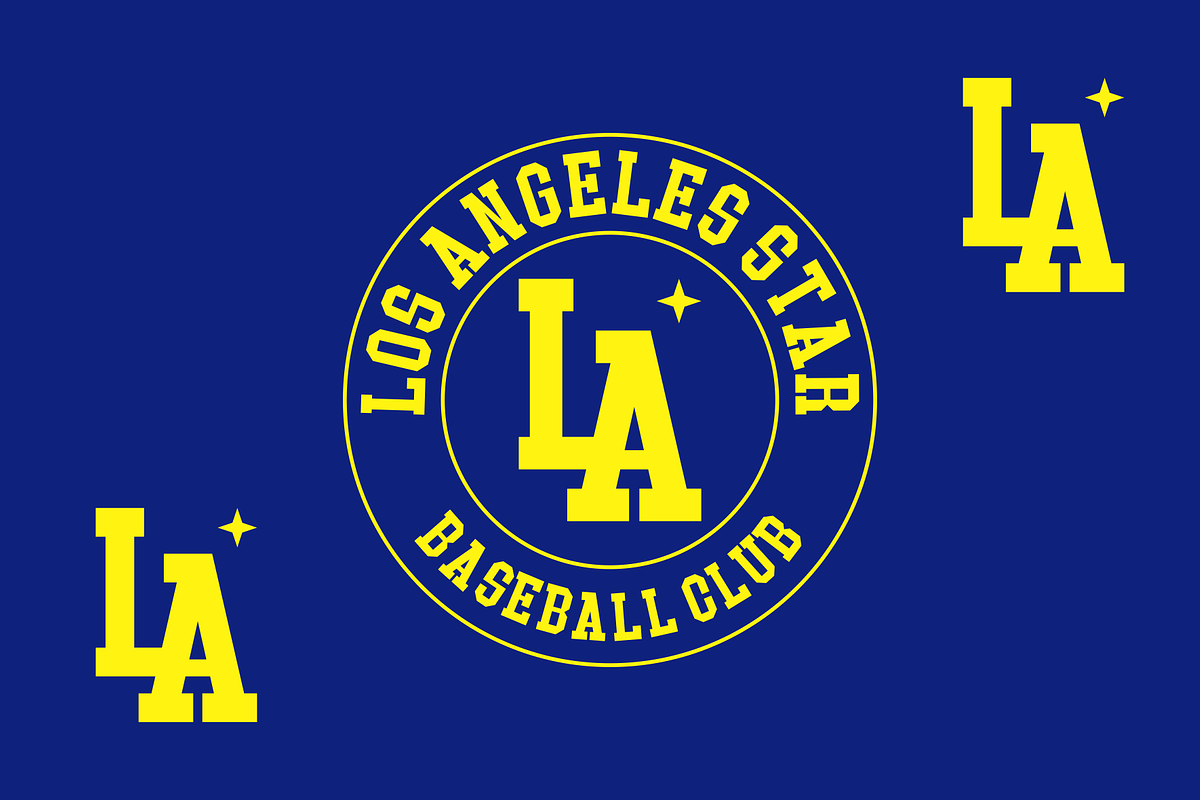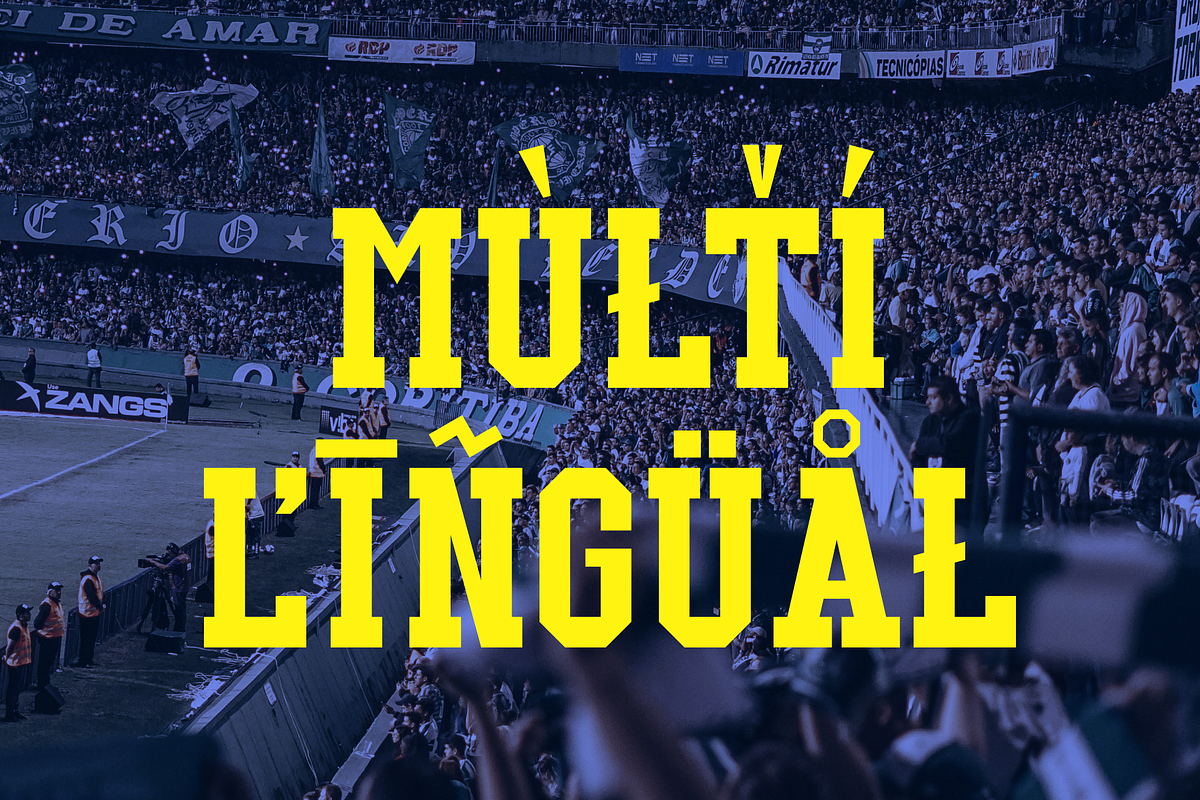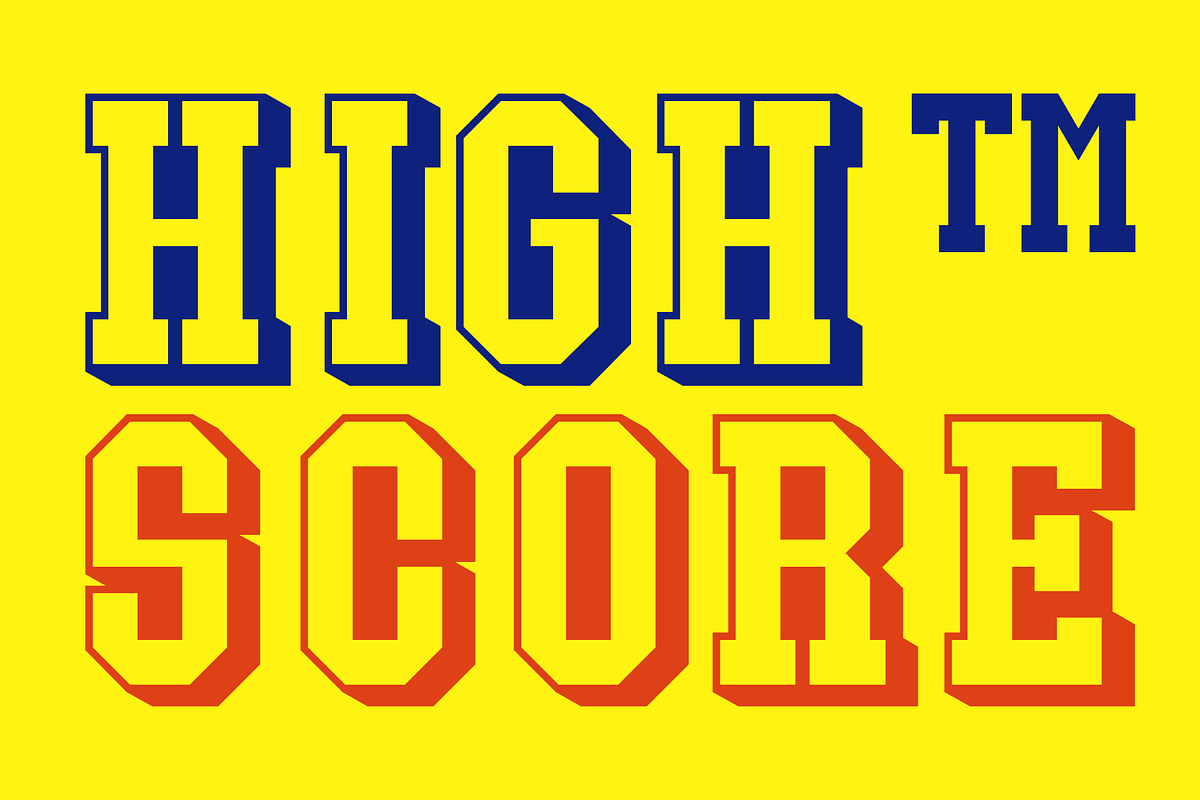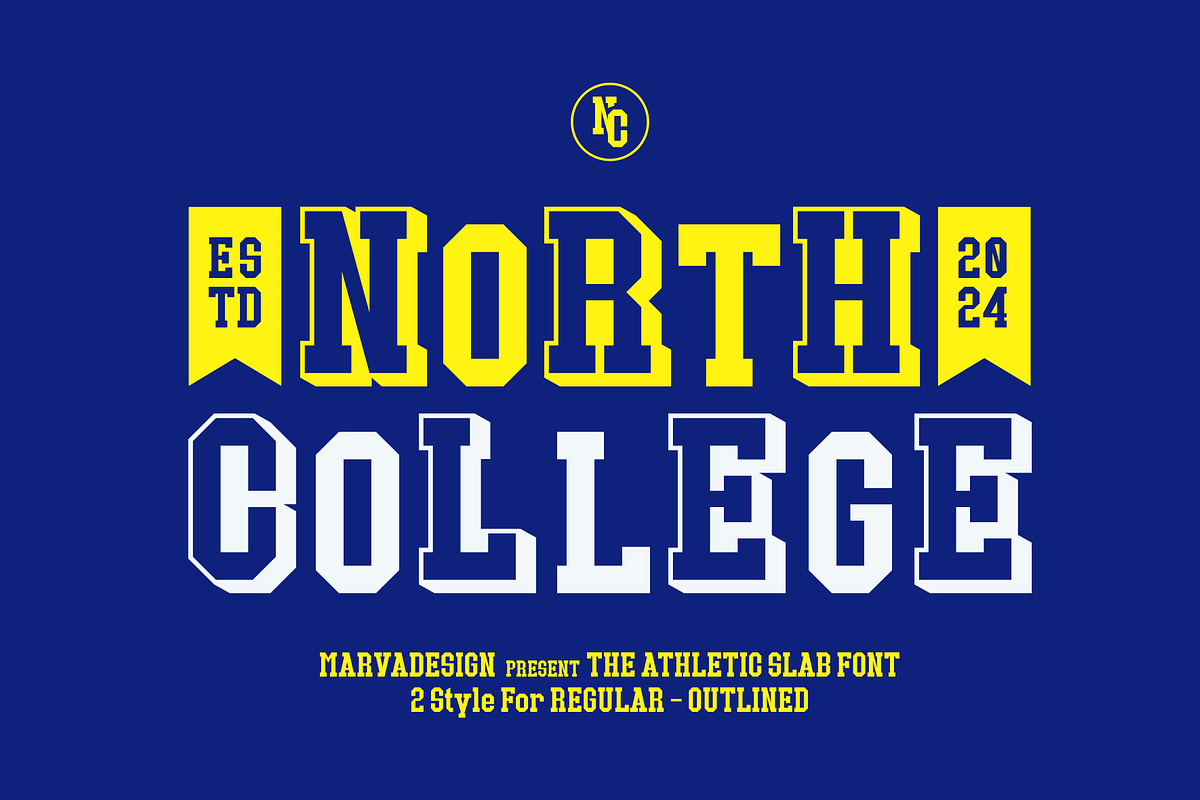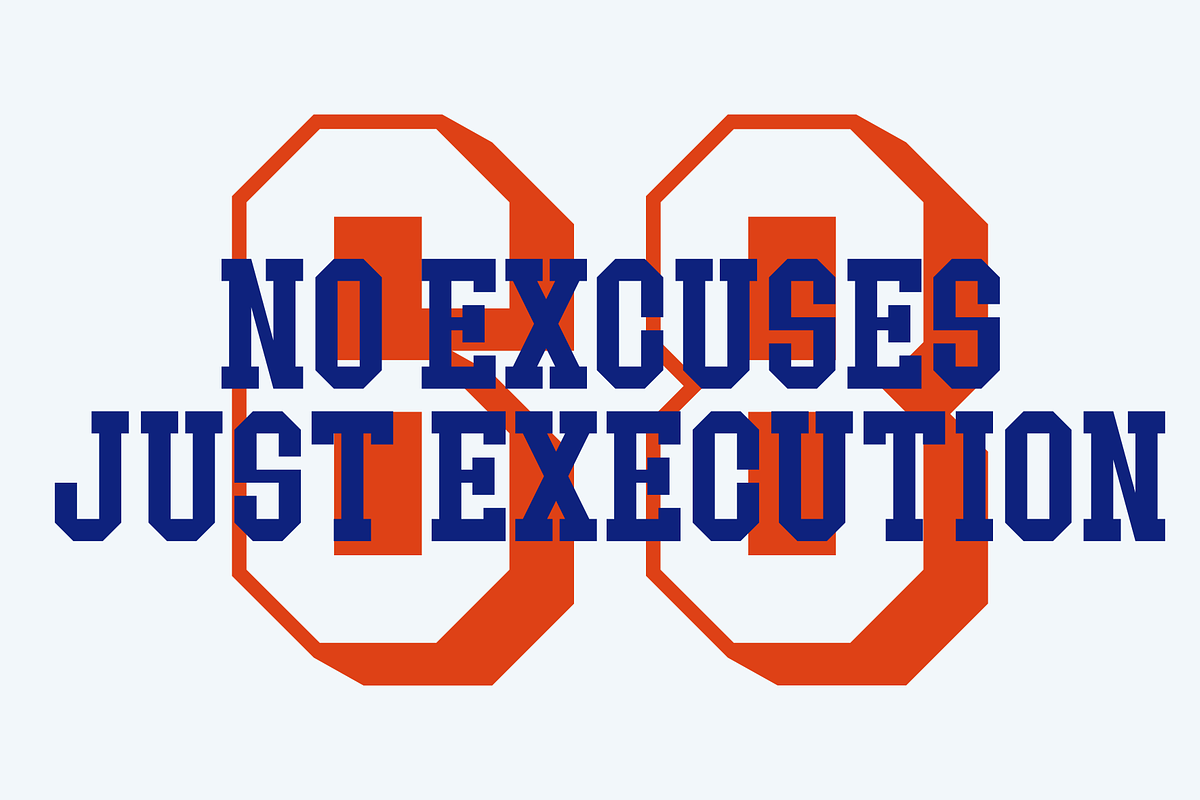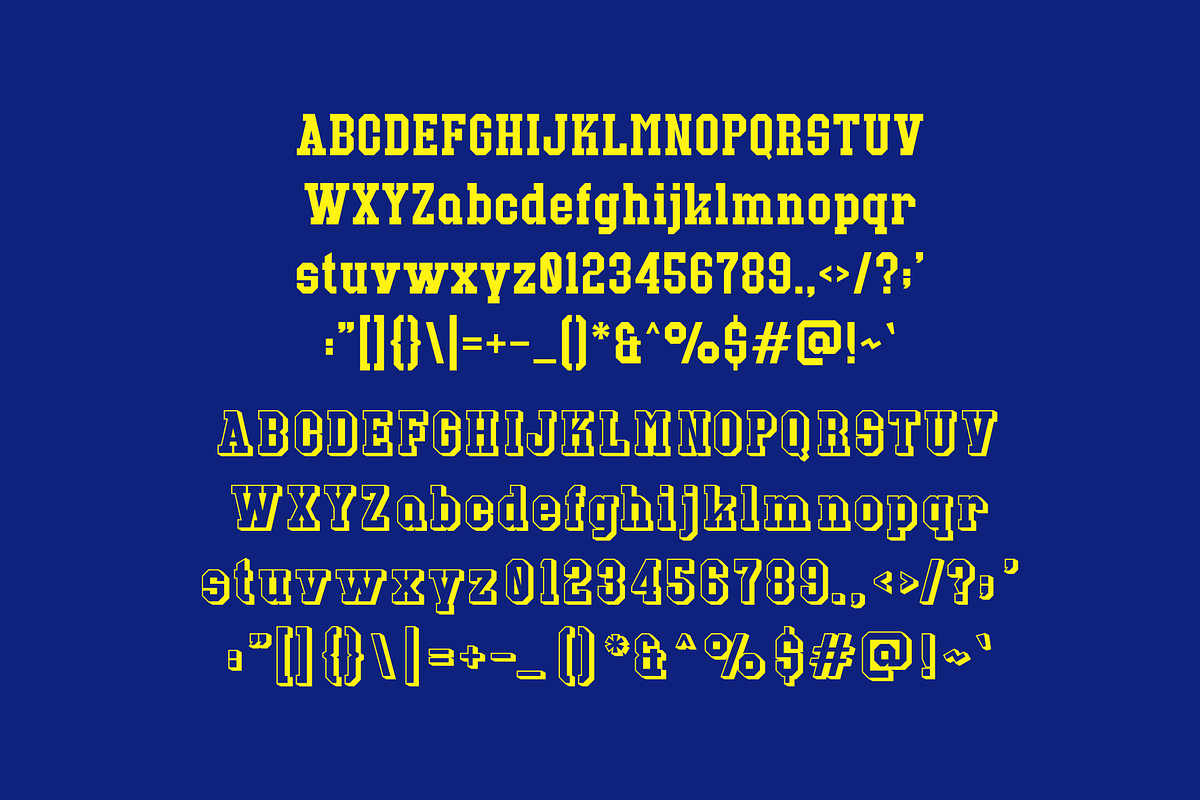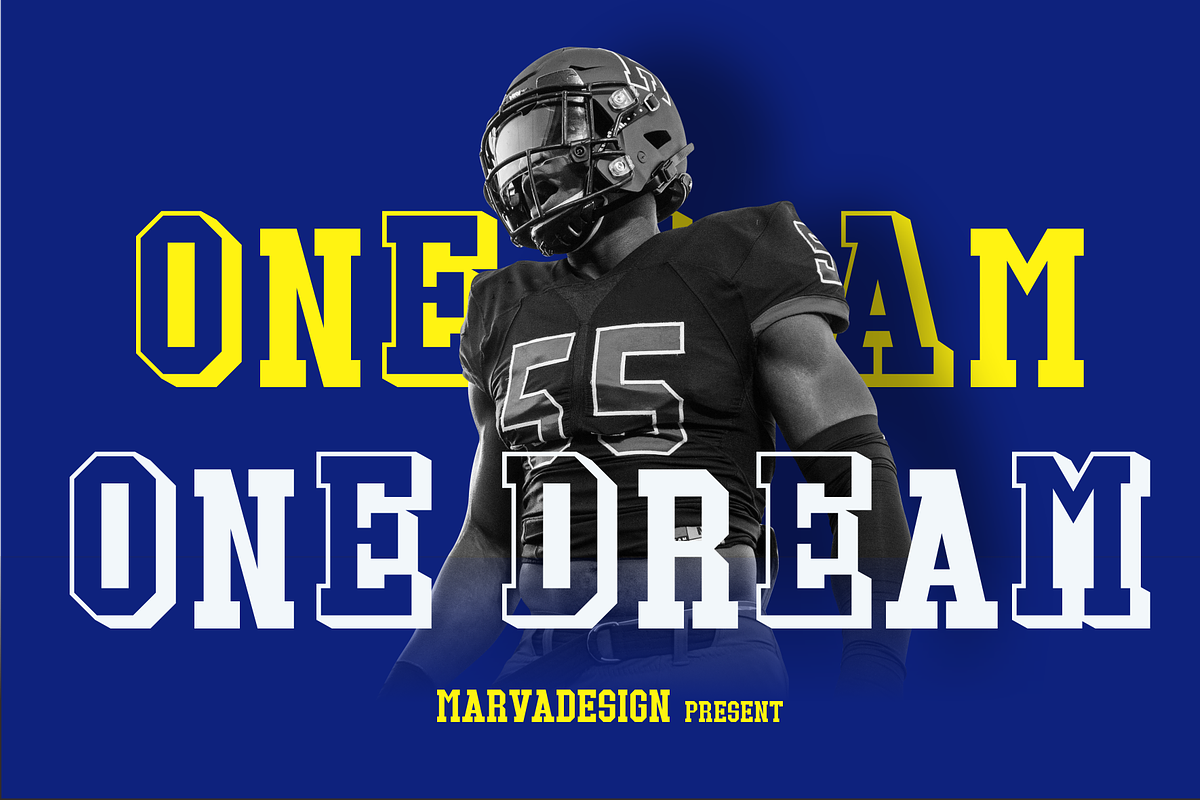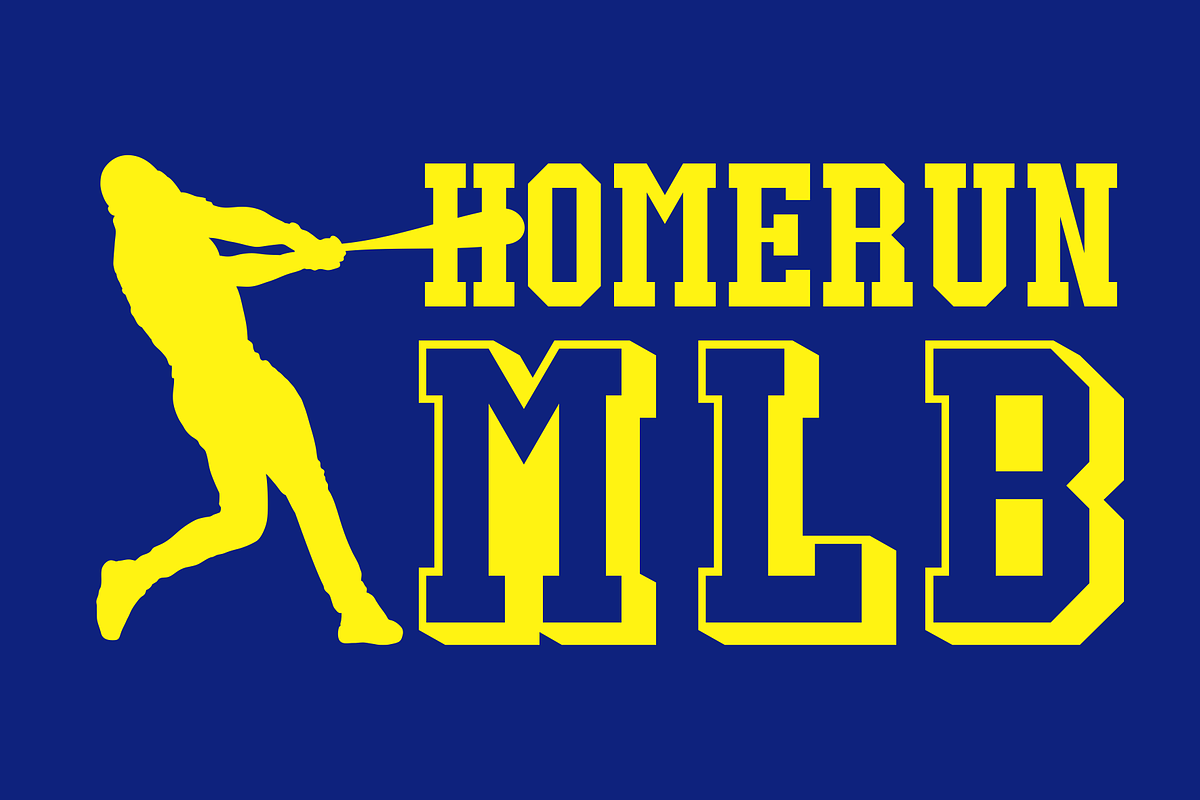
North College - Athletic Slab
North College conveys a strong and dynamic impression, with a high and charming style. Designed specifically to reinforce an athletic aesthetic, this font combines strength with elegance in each letter. The regular style provides a solid, commanding look, while the bold outline style provides a modern touch that attracts attention. Each letter in this font is meticulously designed, displaying clear details and eye-catching sharpness. The complete characters include uppercase and lowercase letters, numbers, punctuation marks, and special symbols that are often used in graphic design. This slab athletic font is suitable for various design purposes, from sports posters, team jerseys, to branding designs for athletic events. With its tough style and strong character, this font is able to give an impressive and professional impression to any design project.